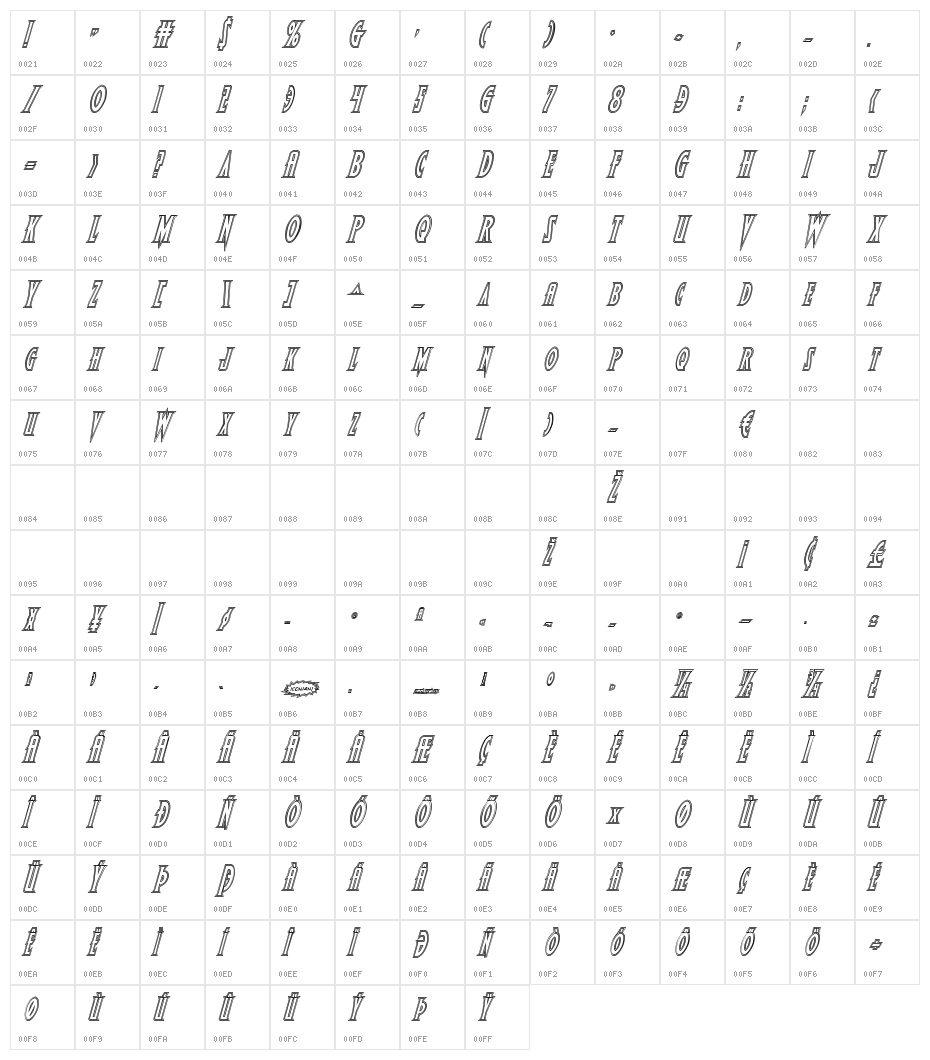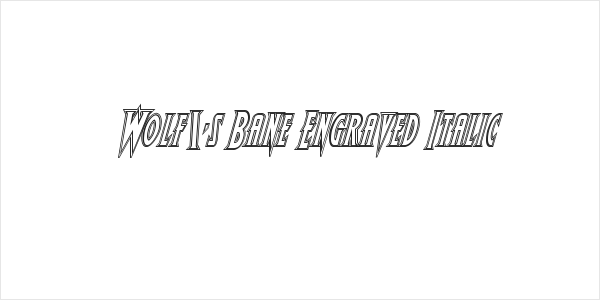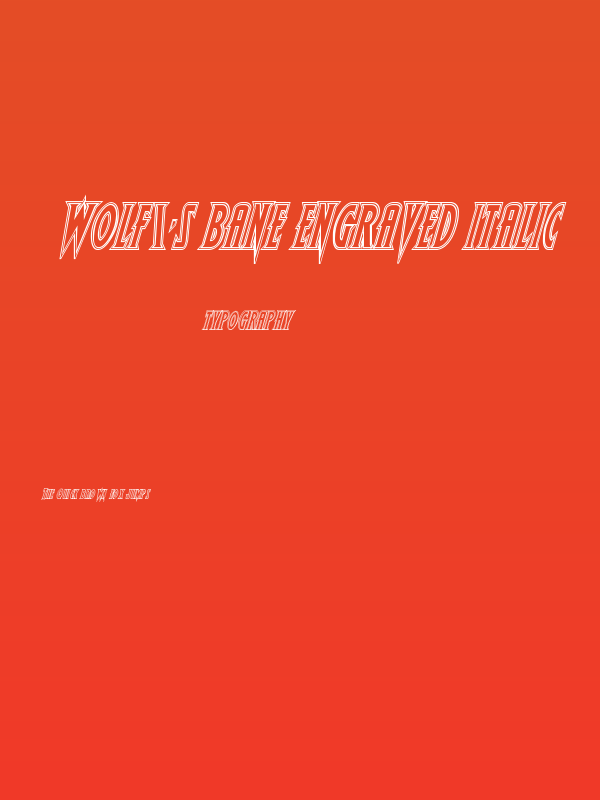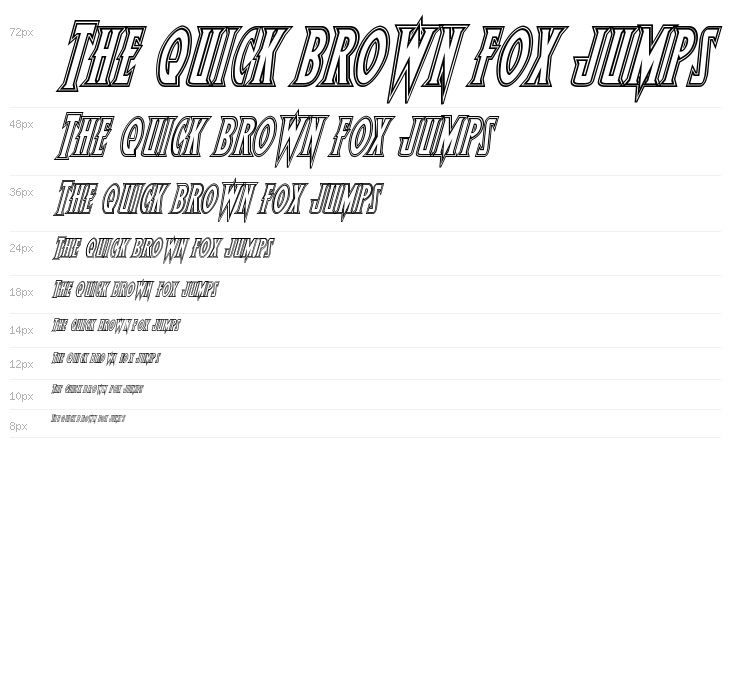
Wolf's Bane Engraved Italic Font
Wolf's Bane Engraved Italic Description
This font features a bold, dynamic style with sharp, angular lines and an engraved appearance. The italic slant adds a sense of motion and energy, making it stand out. Each character is outlined, providing a three-dimensional effect that enhances its boldness. The uppercase and lowercase letters maintain a consistent style, with the uppercase being particularly striking. Numbers and special characters are designed to match the overall aesthetic, ensuring uniformity across all glyphs. This font is ideal for projects that require a strong, impactful visual presence.